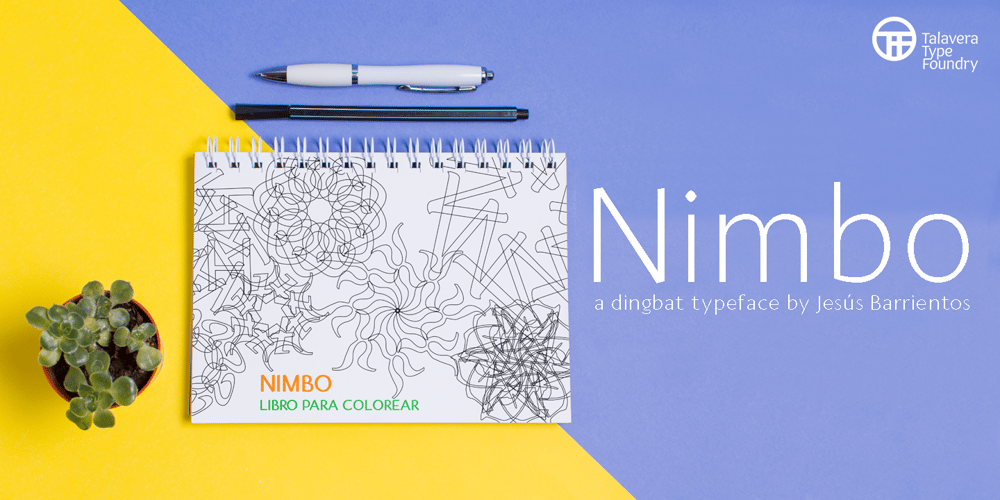
Nimbo TTW
Nimbo TTW font
Nimbo TTW Font Family was designed by Jesus Barrientos and published by Talavera. Nimbo TTW contains 1 styles and family package options. This is a playful collection of 135 diagrams based on letterforms from different styles. You can use this symbols as bullets, ornaments, but also to make your own mandala-like exercises and release some stress out! Nimbo, by the way, is the word for “halo” in spanish.